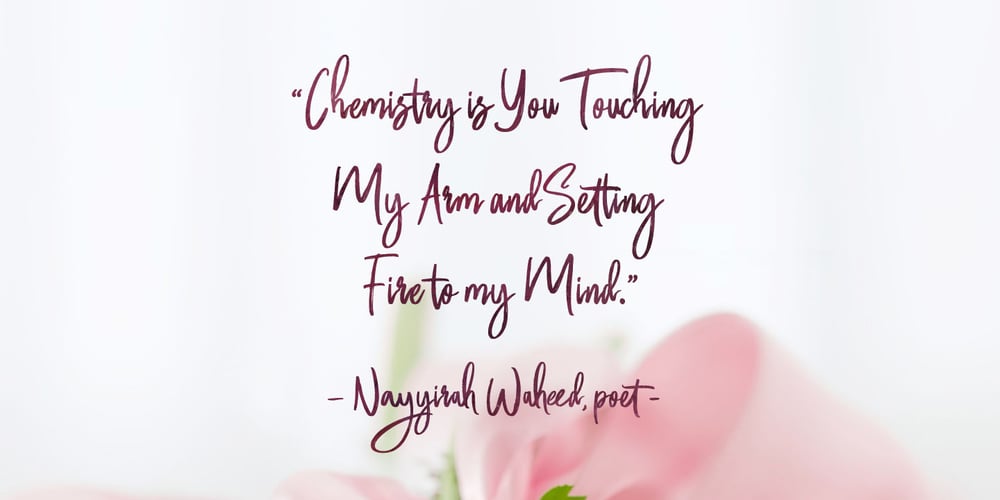
Butter Luchy Font Family was designed by Ferry Hadriyan and published by FHFont. Butter Luchy contains 1 styles and family package options. Butter Luchy is Handwritten script font with handlettering Brush Style, so much opentype feature include of the font. Suitable for design, element design, wedding, event, t-shirt, logo, badges, sticker, and awesome work, etc…